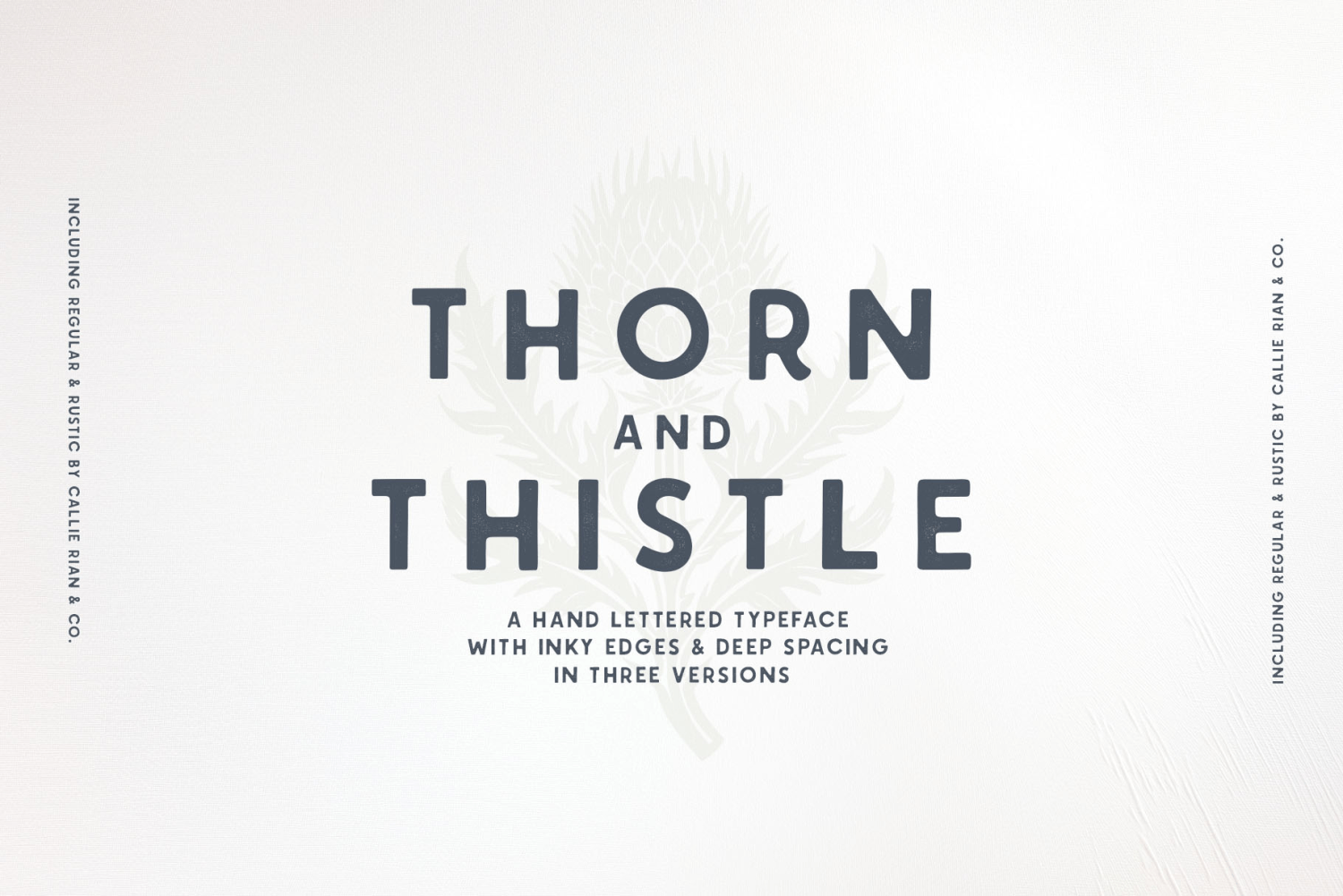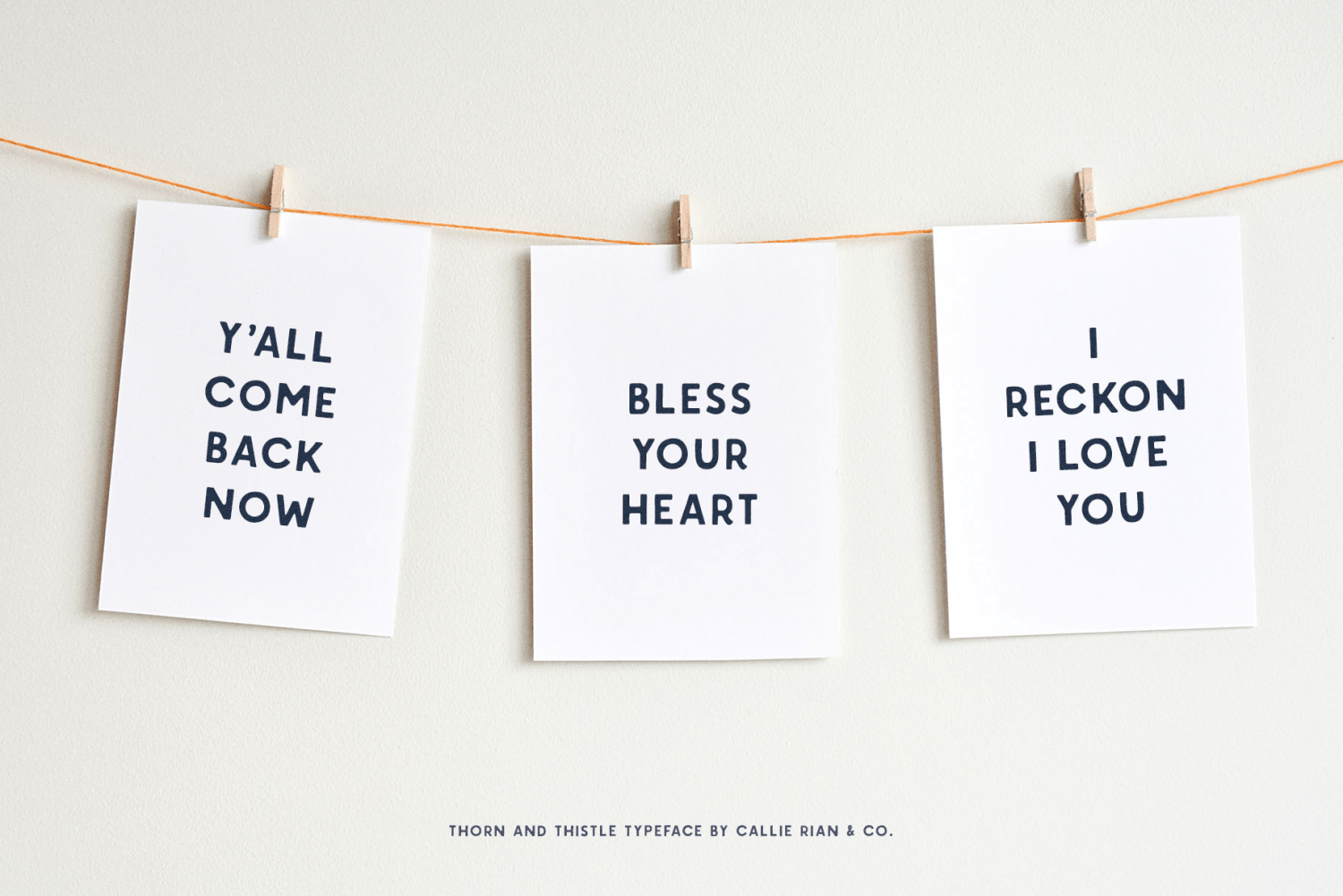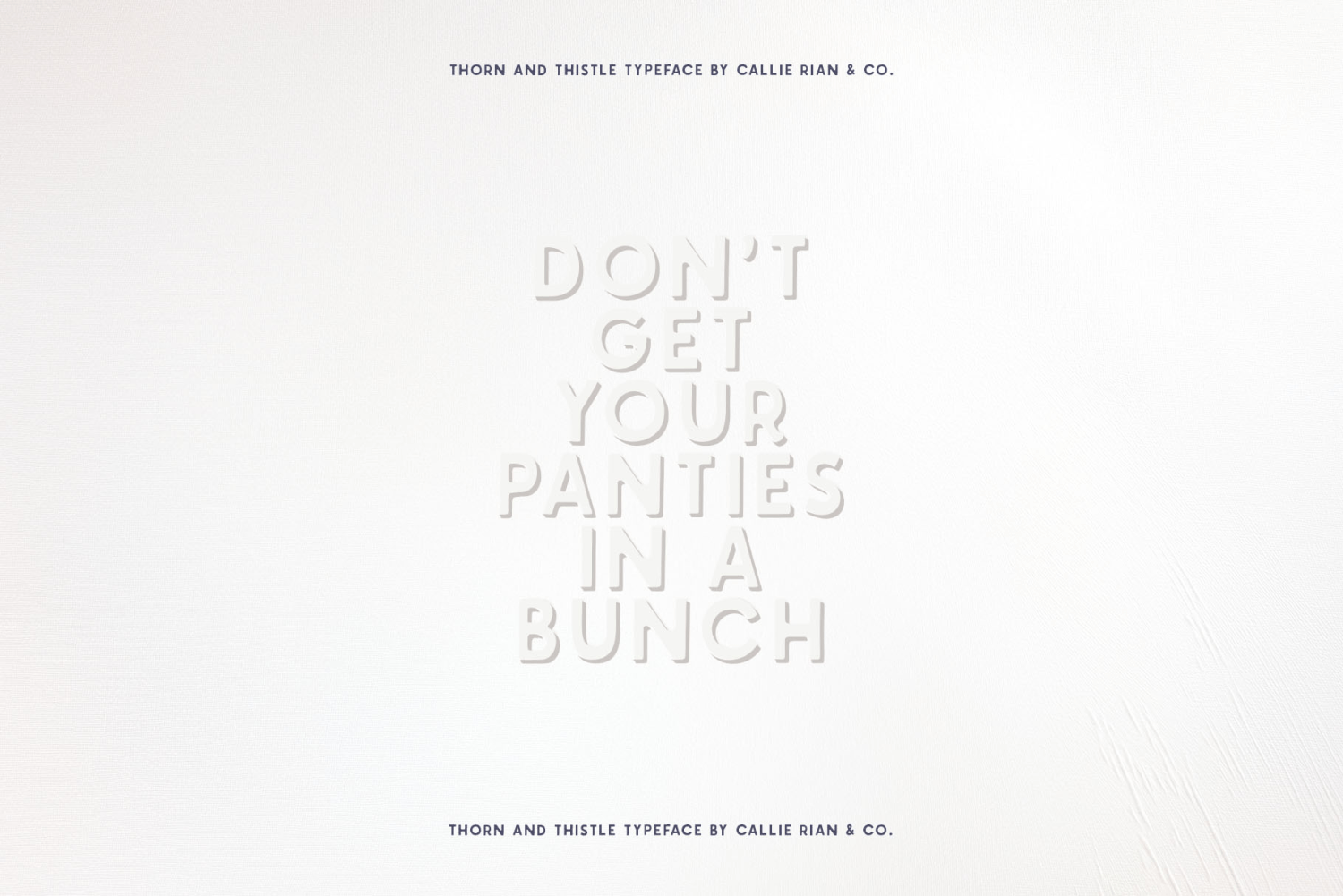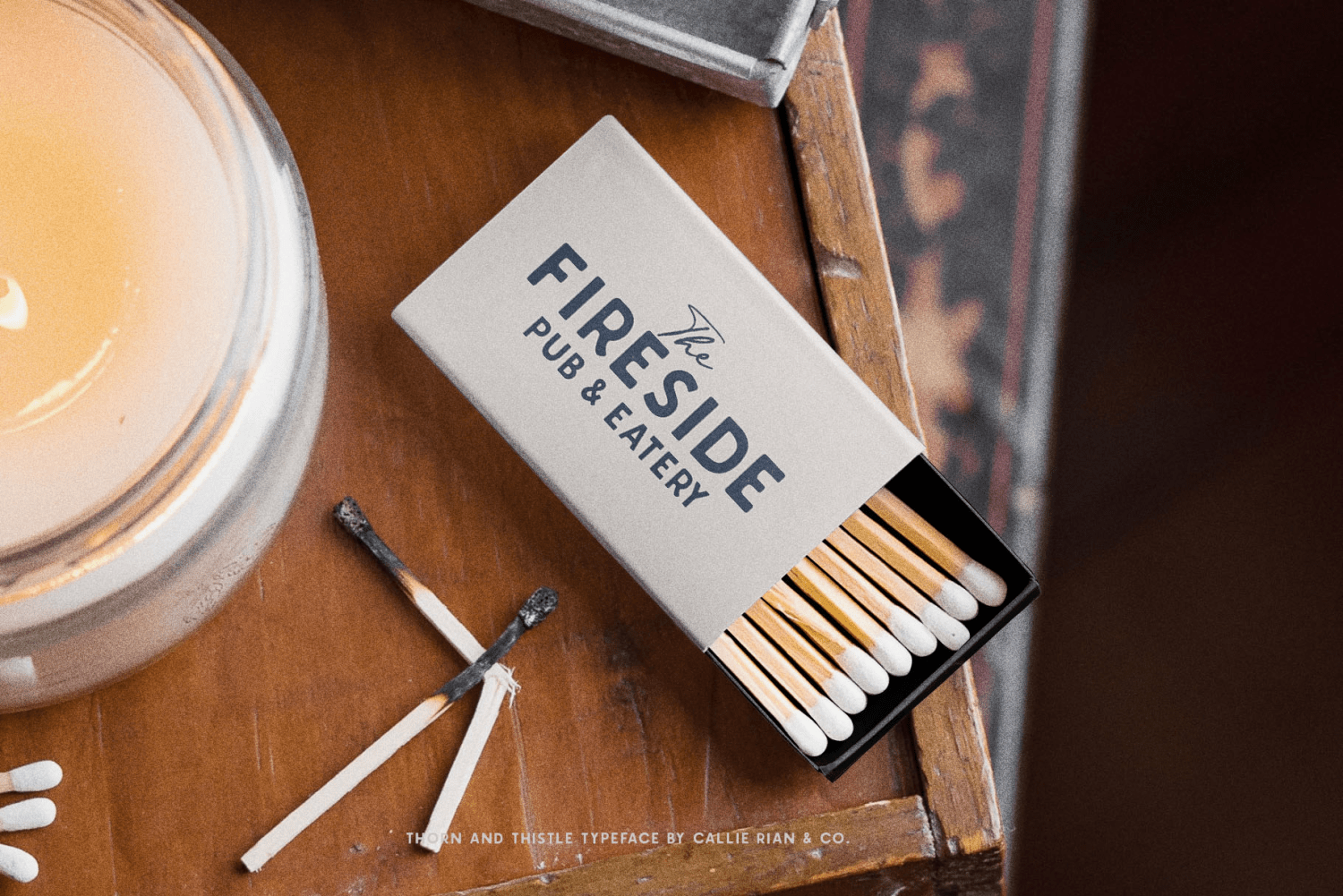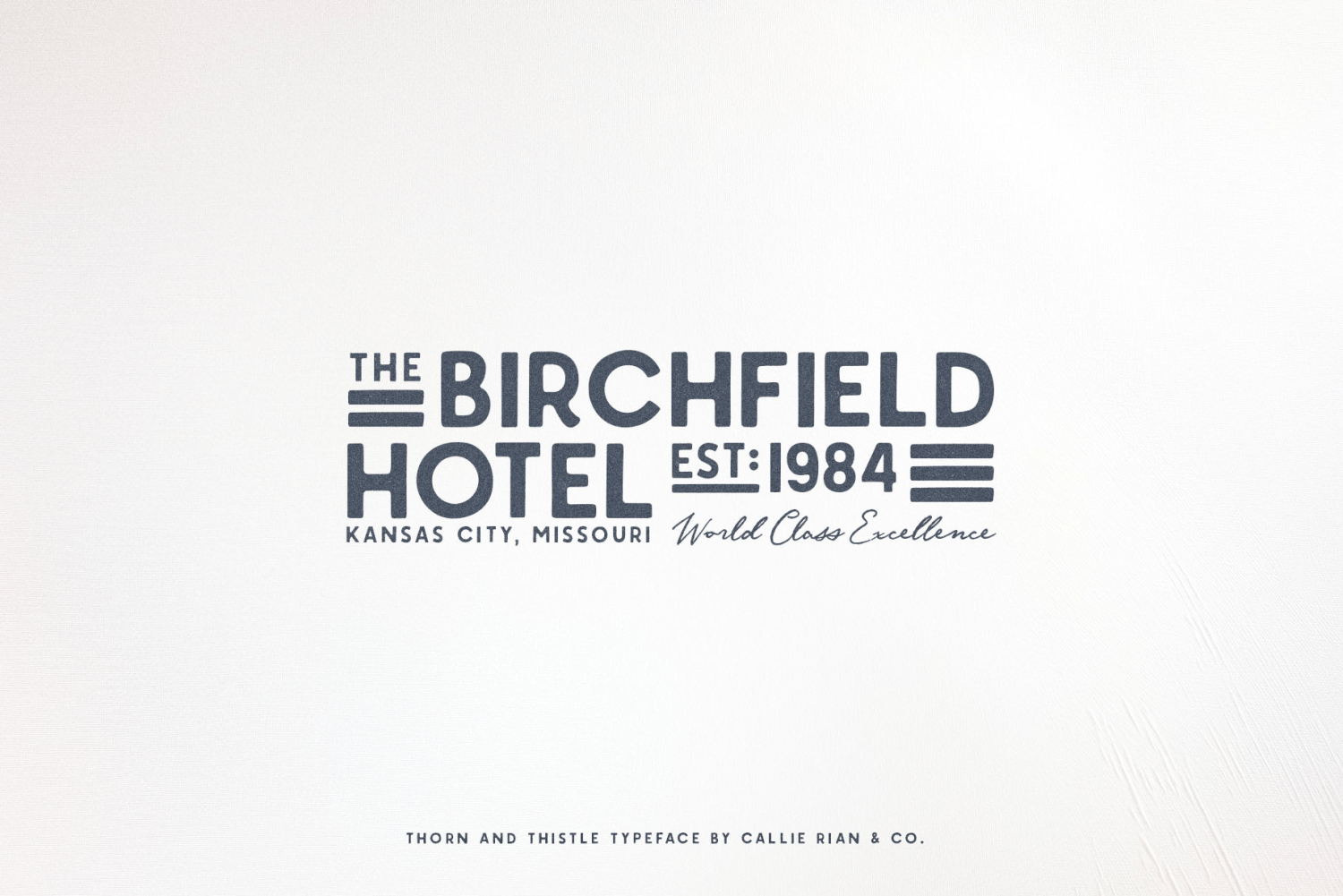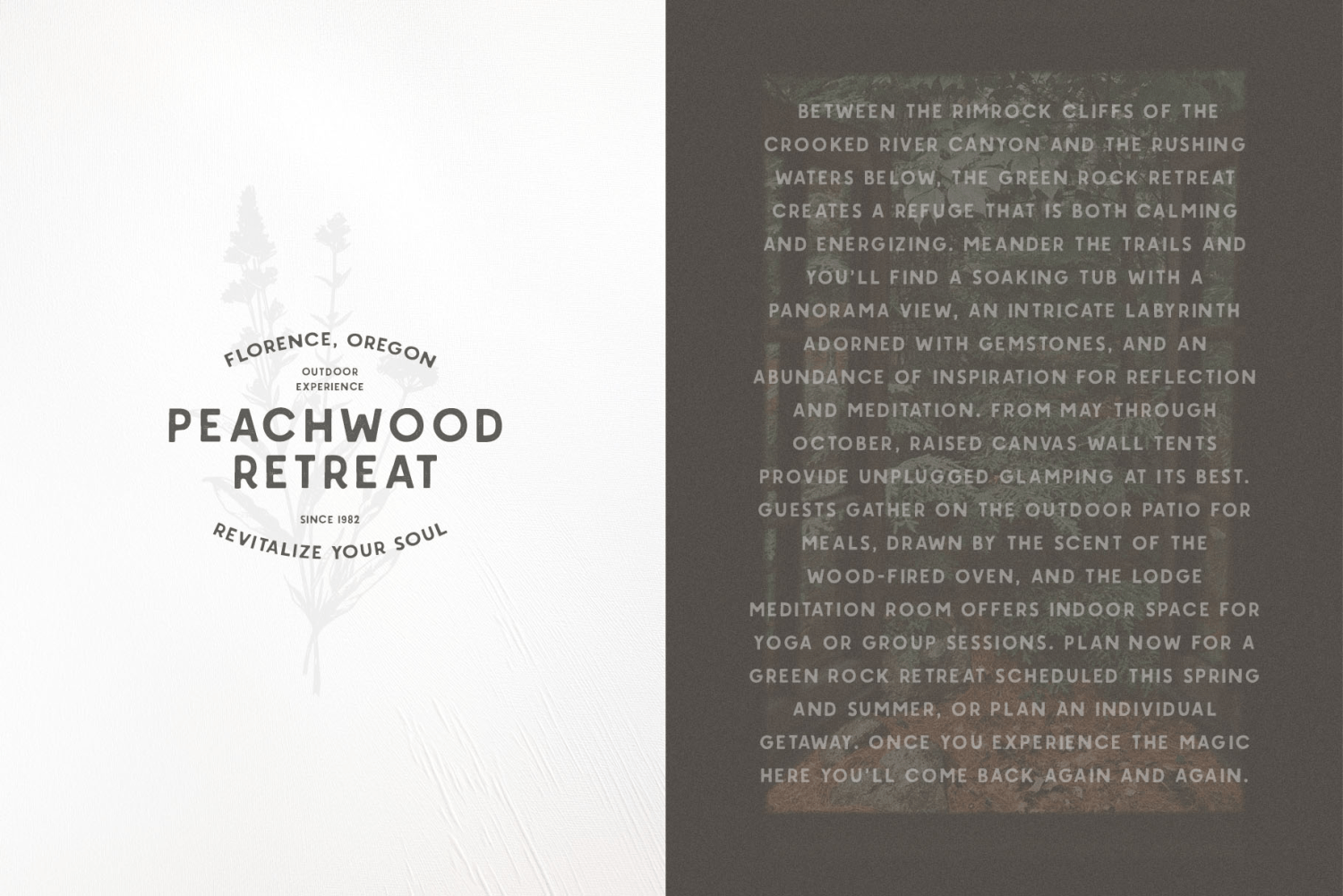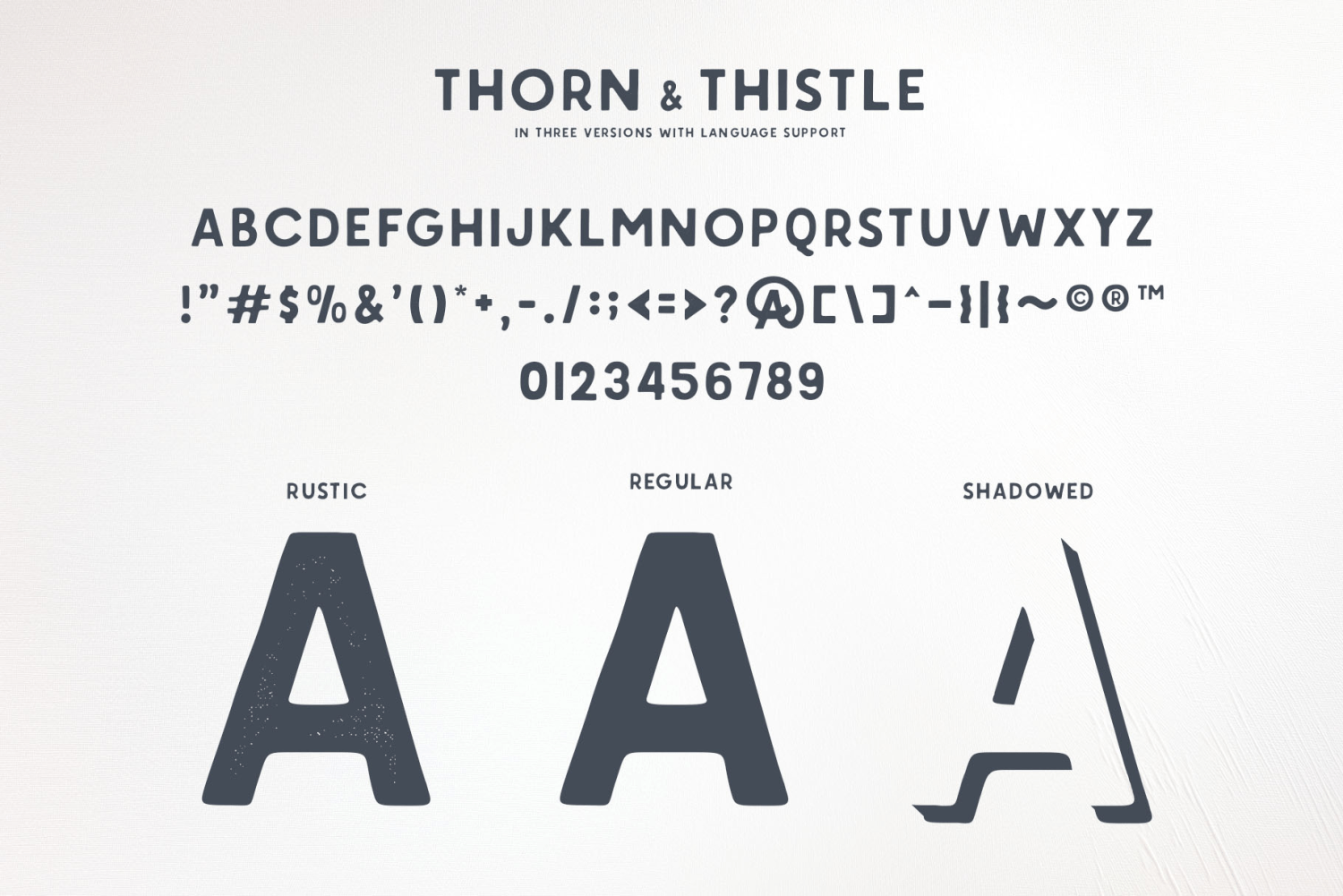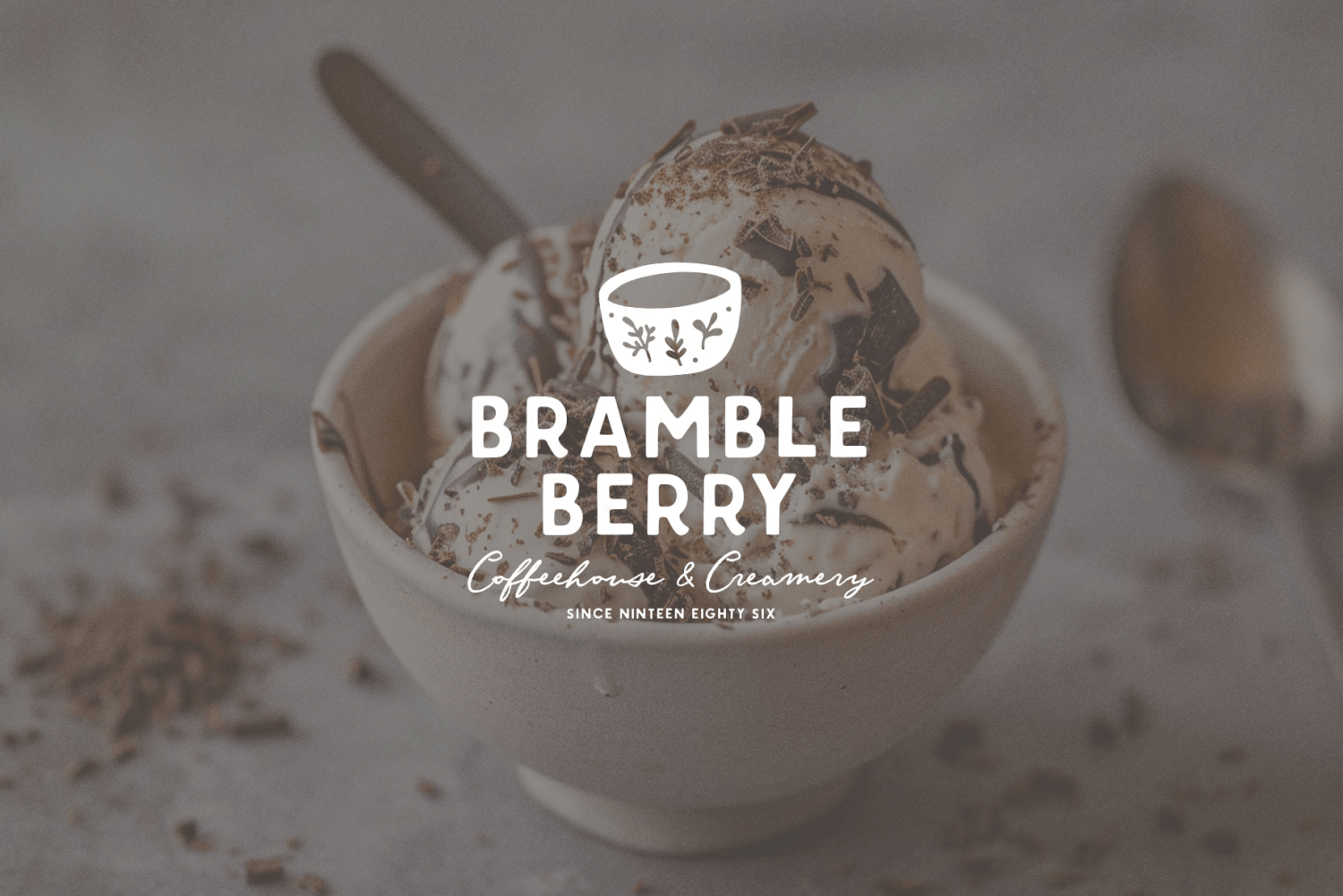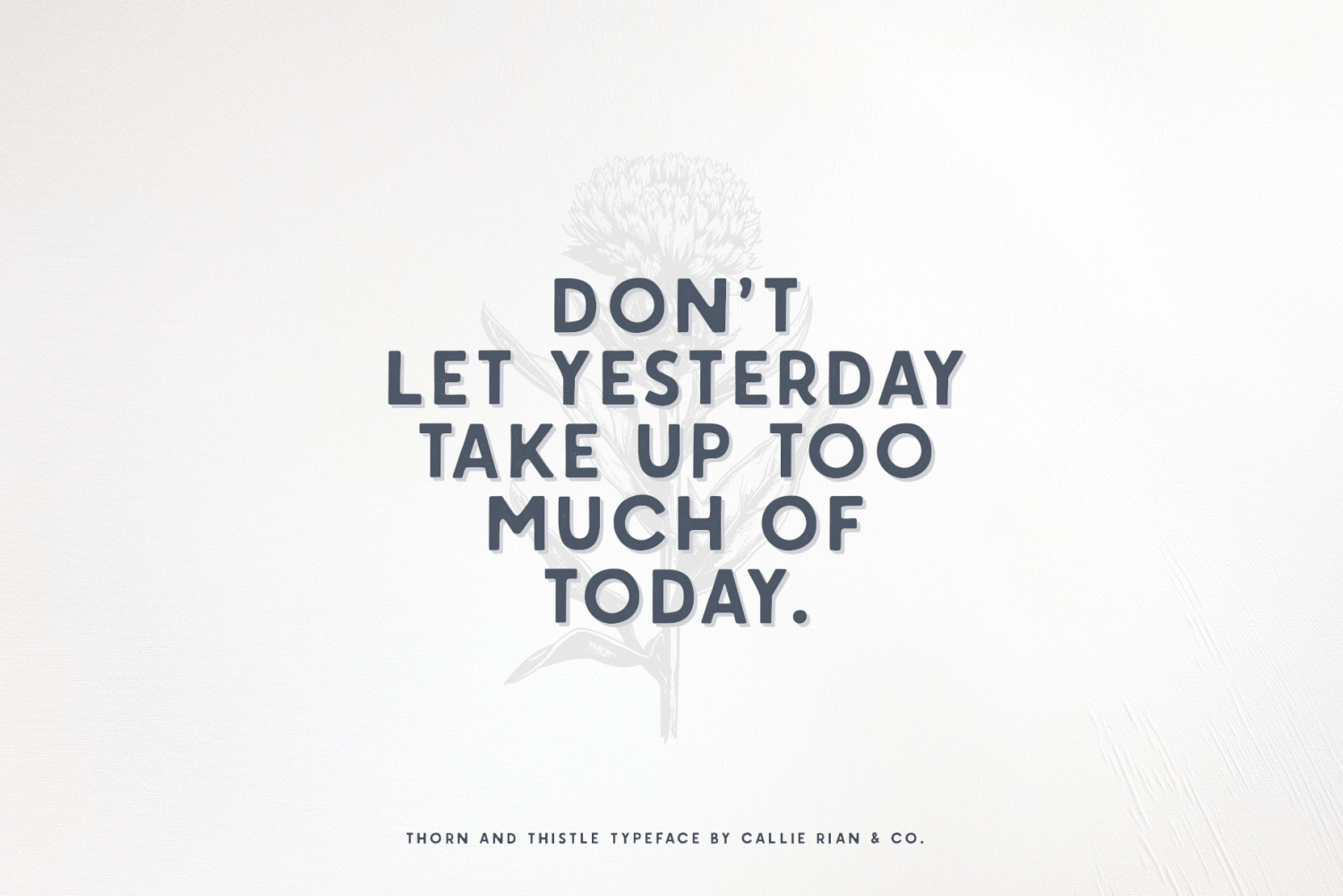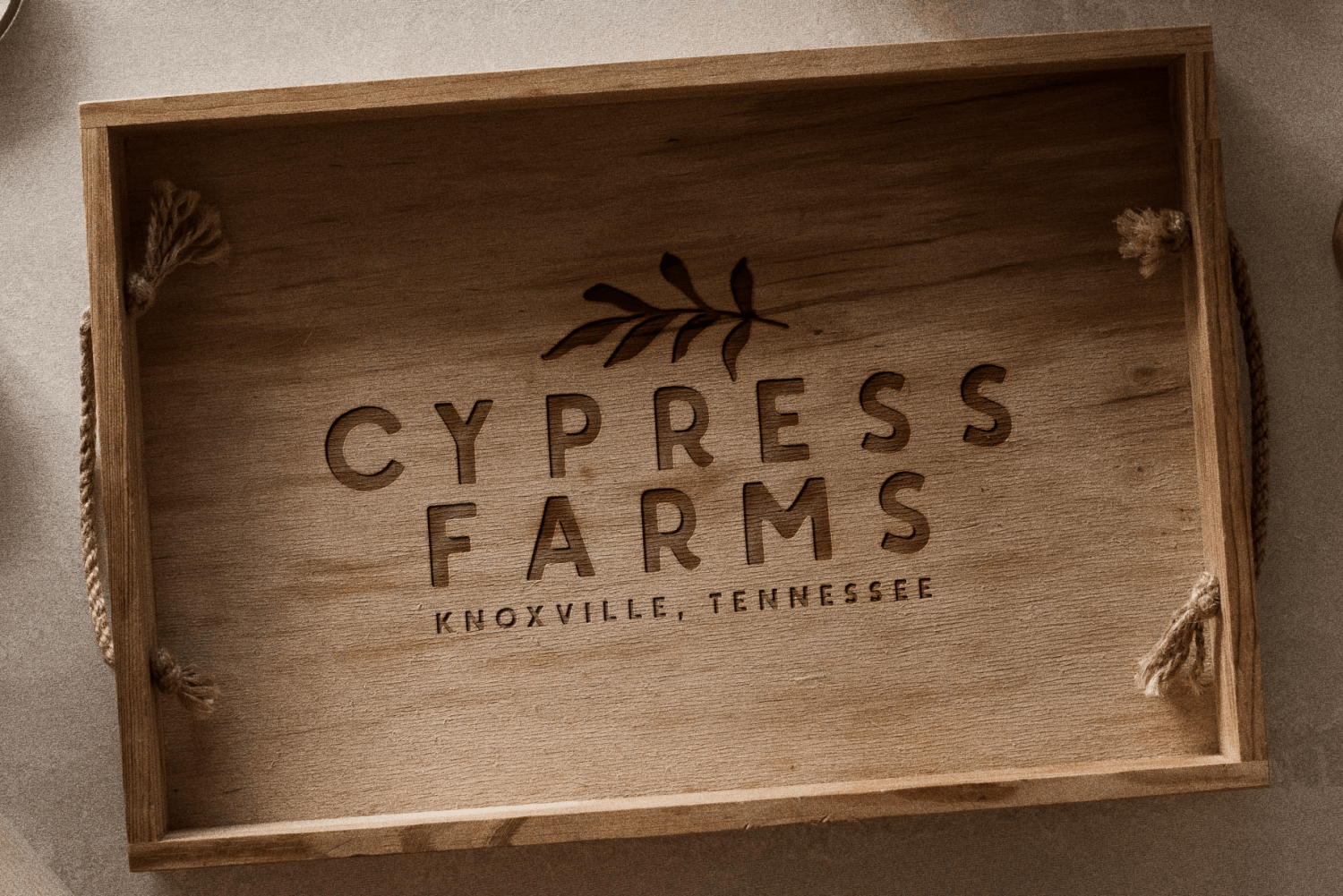
Thorn & Thistle Sans
Font Family by Callie Rian & Co
Introducing Thorn & Thistle, a hand-drawn Sans Serif family with subtlety-inked corners in 3 versions: regular, rustic, and shadowed. Thorn & Thistle is the trendy, classic beauty you need on magazines, headlines, logos, packaging, quotes and logos.
Thorn & Thistle Regular
Thorn & Thistle Shadowed
Thorn & Thistle Rustic